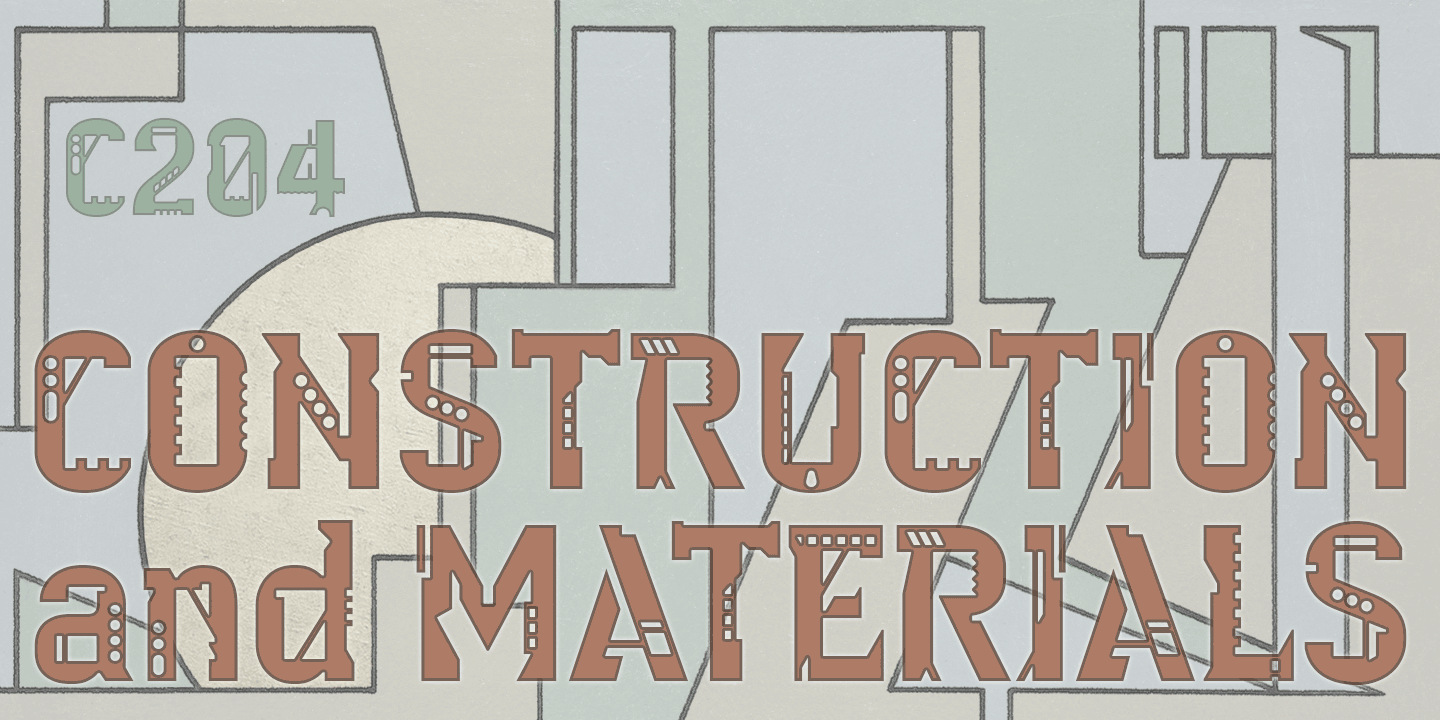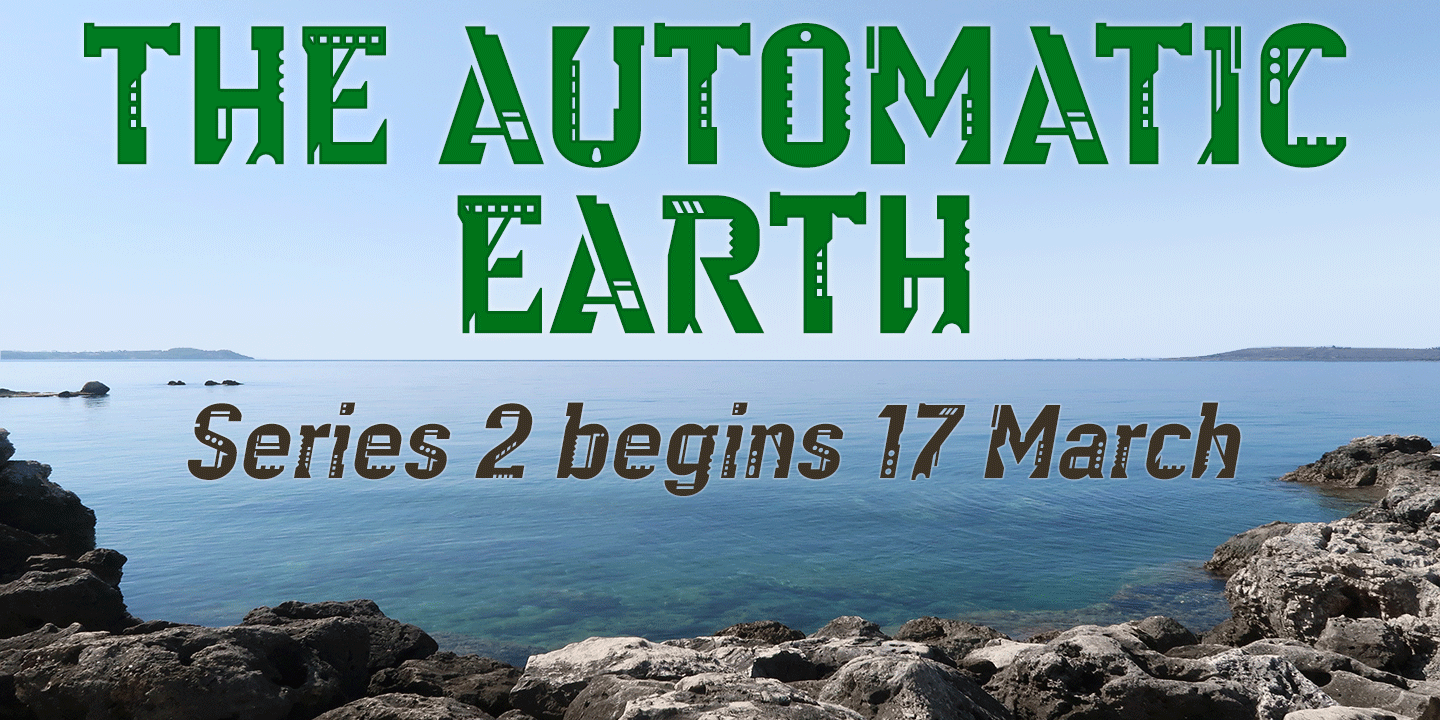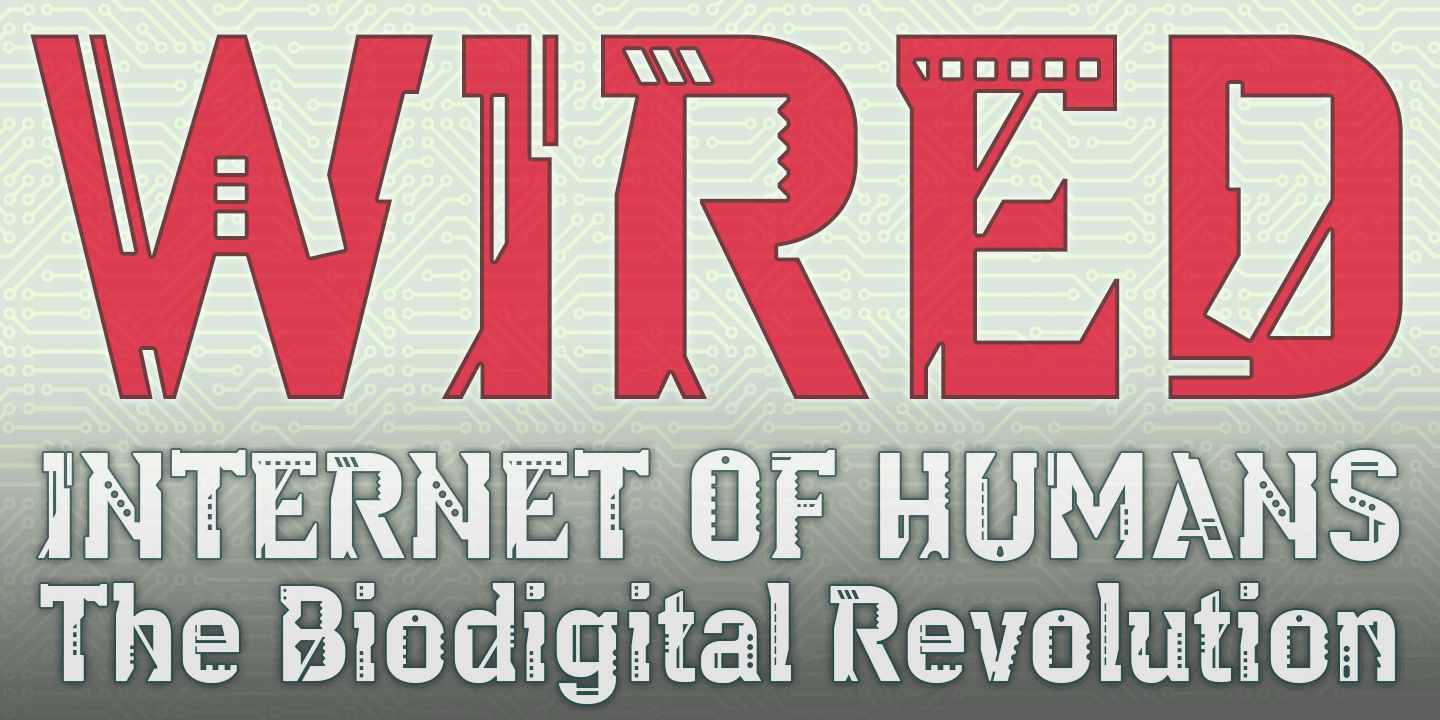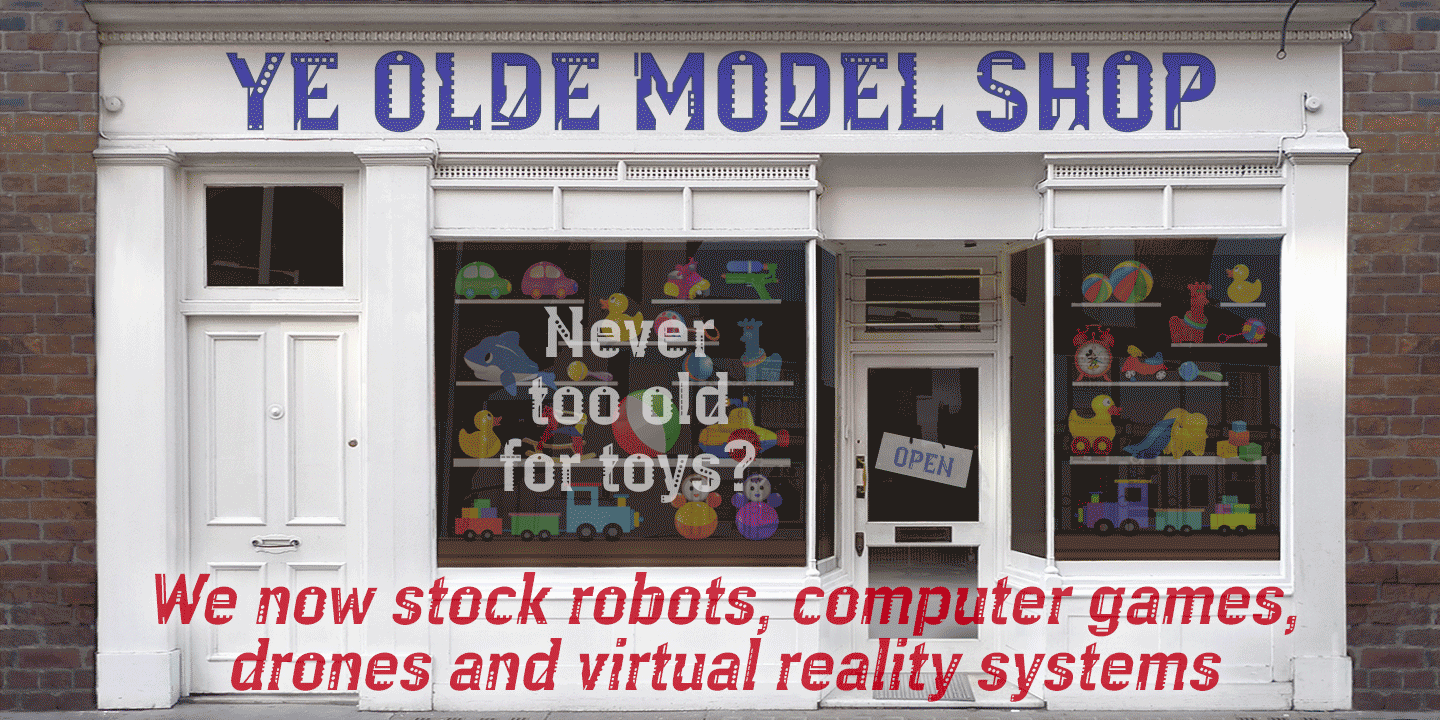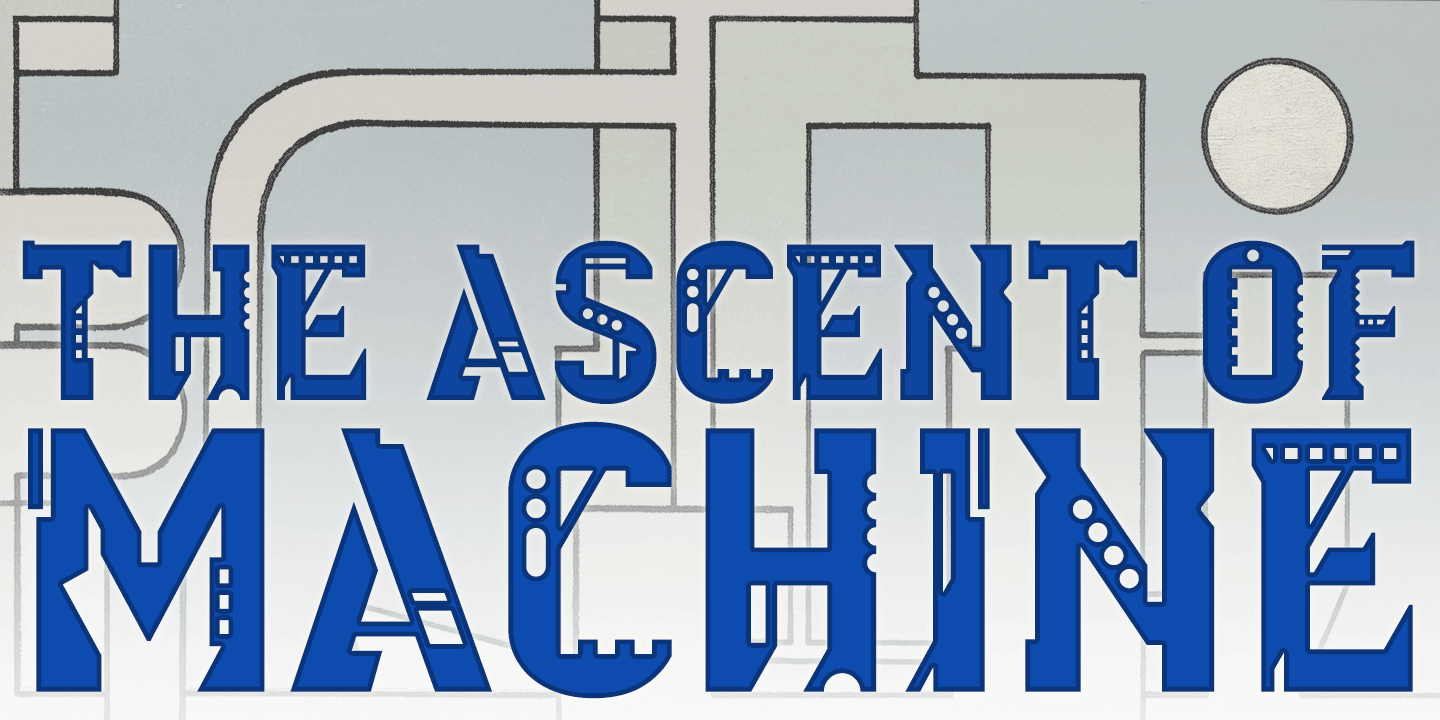
Argot Machine is a display face based on K-Type Argot Bold but with pop art style modifications inspired by the shapes of machinery and construction, such as punched, die-cut, pressed, and moulded forms. Argot Machine is supplied with a handy oblique…